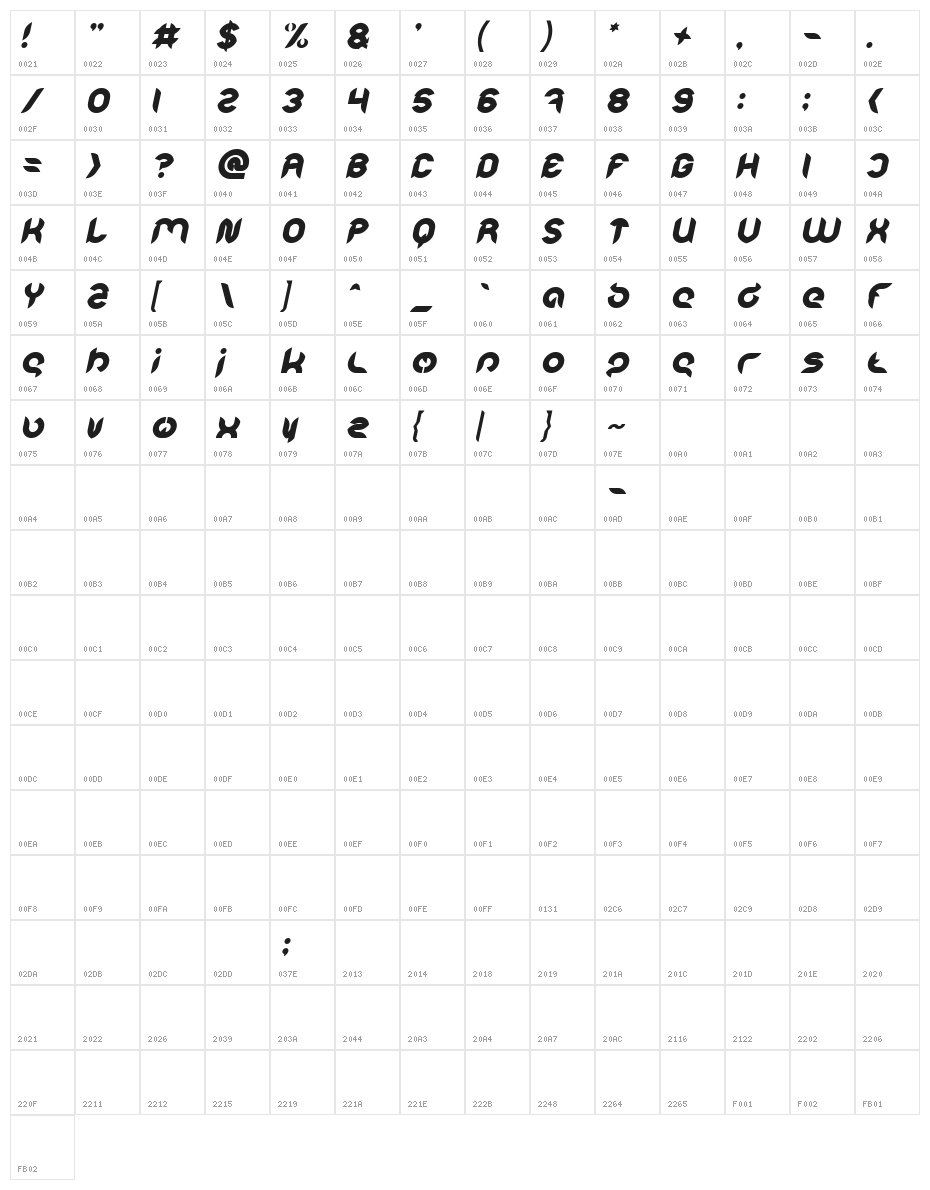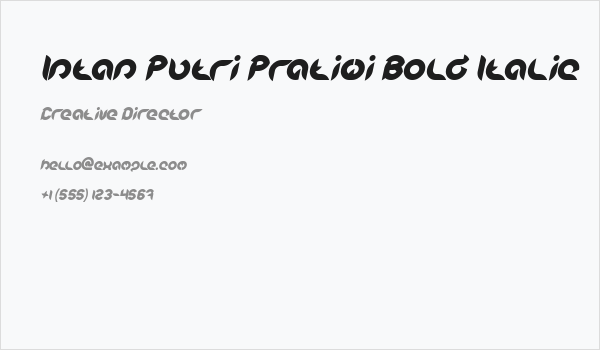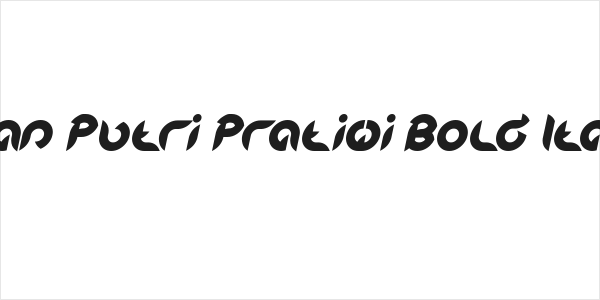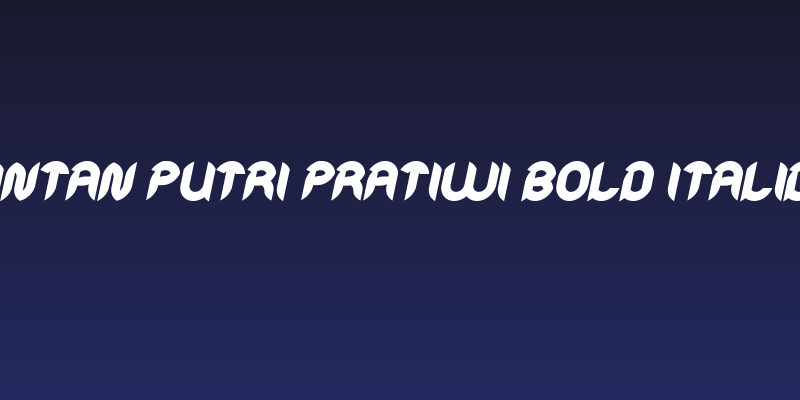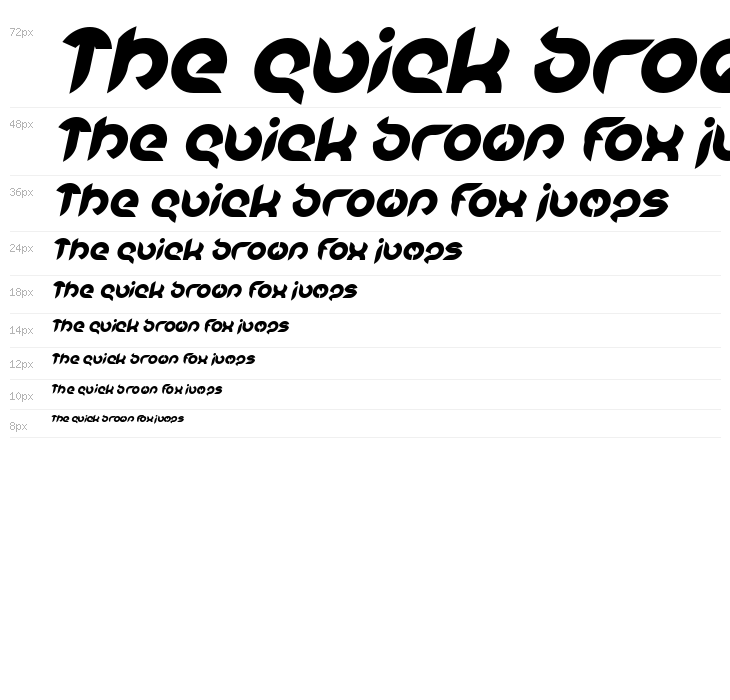
Intan Putri Pratiwi Bold Italic Font
Intan Putri Pratiwi Bold Italic Description
This bold and italic font features a dynamic and energetic style, characterized by its thick strokes and fluid, cursive-like forms. The letters are designed with a forward-leaning slant, giving a sense of motion and urgency. The uppercase and lowercase letters maintain a consistent style, with rounded edges and a slightly compressed appearance. The numerals and special characters follow the same bold and italicized design, ensuring uniformity across all characters. This font's unique style makes it stand out, with a modern twist on traditional cursive elements.
| Proposed Projects | Ideal for branding, advertising, and poster design where a bold and energetic statement is needed. |